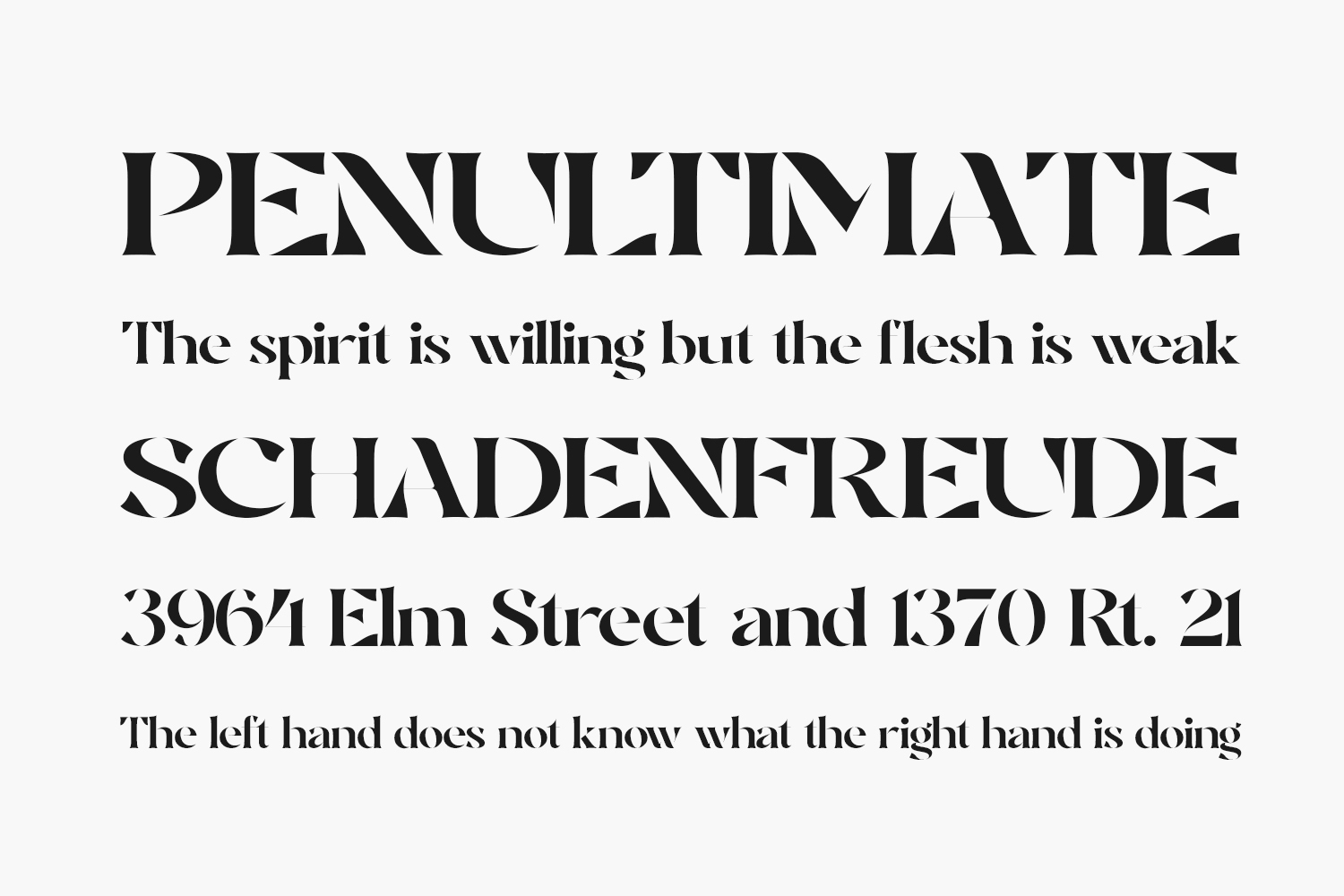
Brogte Free Font is a contemporary yet timeless serif font that exudes a distinct and sophisticated aesthetic. This typeface is the perfect choice for creating elegant and luxurious logos, designing book or movie titles, fashion brands, magazines, clothing, lettering, quotes, and a multitude of other creative applications. Brogte Free Font is free for personal use only. Please purchase the full version for commercial use.